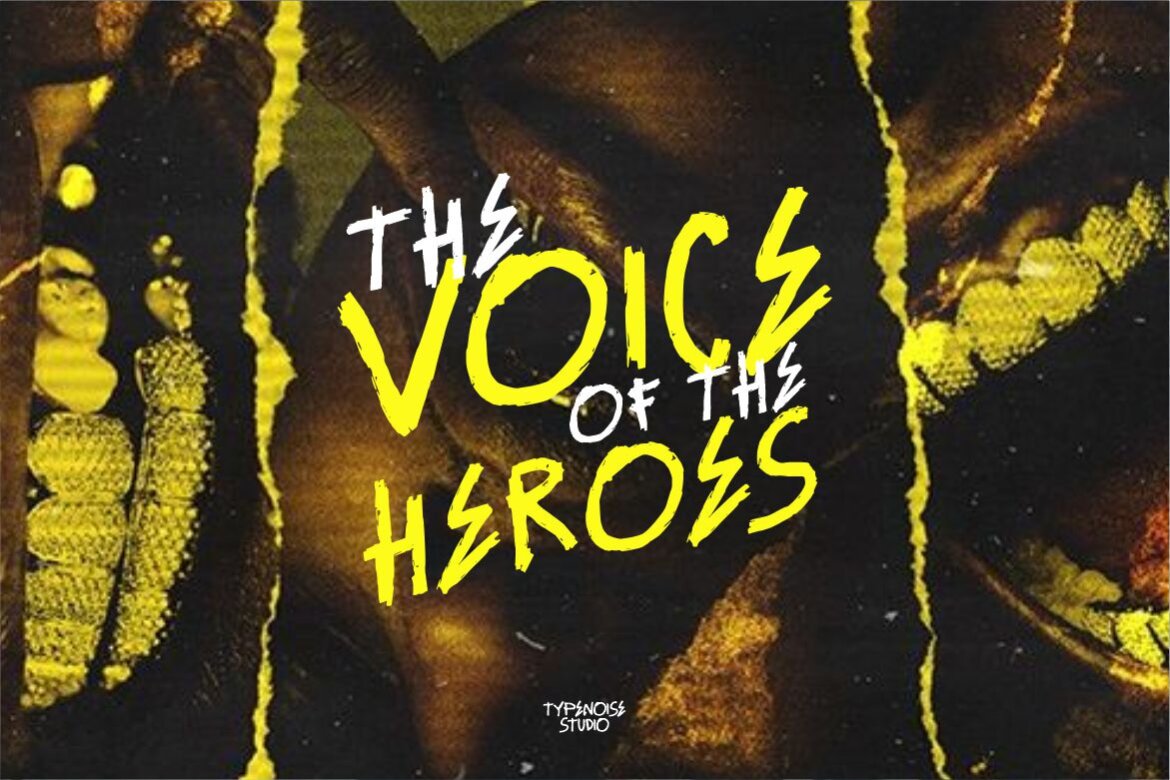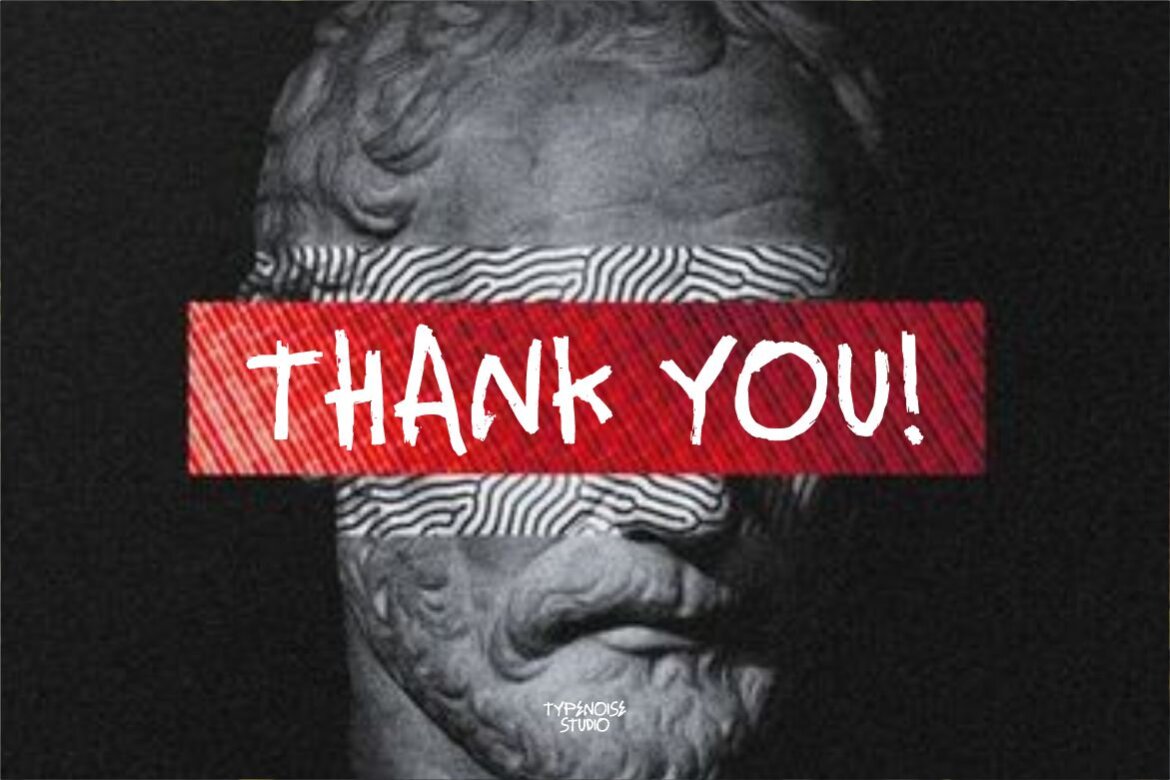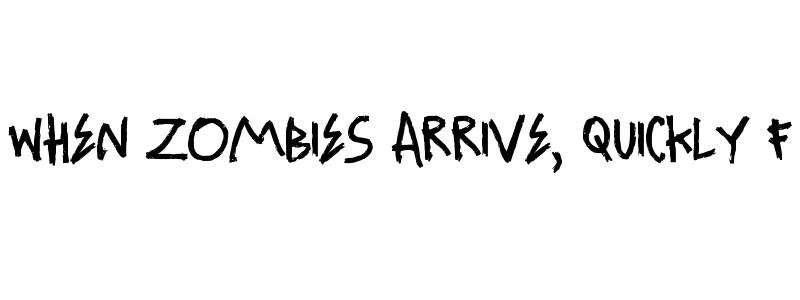
Trial Dust FREE Brush Font
Trial Dust
Introducing Trial Dust, a standout amongst professional fonts and typefaces expertly crafted for design enthusiasts. This distinguished font melds classic inspiration with a modern twist, presenting a unique style. Exquisitely hand-drawn and boasting scratch aesthetics, Trial Dust is poised to elevate diverse content and design projects, truly bringing your creative vision to life. Experience the versatility and innovative appeal of Trial Dust, and let your creativity soar to new design heights.